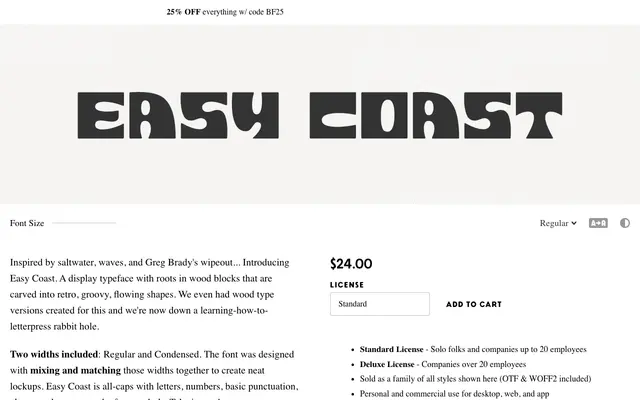
Easy Coast
An all-caps display typeface drawn from wood-block letterpress traditions, shaped into retro, flowing forms with a surf-culture sensibility.
Comes in two widths, Regular and Condensed, designed to be mixed together for typographic lockups. Coverage is practical rather than broad: letters, numerals, basic punctuation and a set of alternate characters including discretionary ligatures for BY and OF. The wood-type origins are literal, with physical letterpress versions produced alongside the digital release.
An all-caps wood-type-inspired display face with groovy, flowing letterforms and two width variants; firmly in the display category with retro decorative roots.